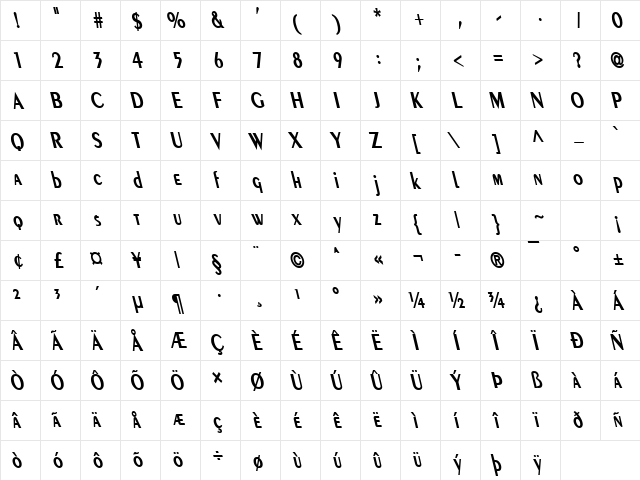
Design Context for Pare Condensed Reverse Typeface
Pare Condensed Reverse offers clean, dependable letterforms without strong stylistic allegiance, making it a practical choice for designers who need flexibility. The dynamic lean of this cut emphasises speed and emphasis in any layout. Its bold stroke weight gives it real presence on the page. Its narrow stance lets it pack a punch even in space-constrained designs.
Pro Tip: Try Pare Condensed Reverse for annotation and caption copy alongside an upright companion — the contrast in angle creates a dynamic but ordered typographic system.